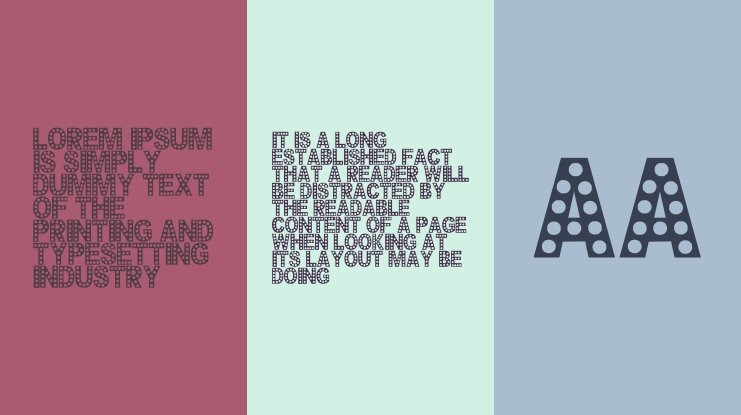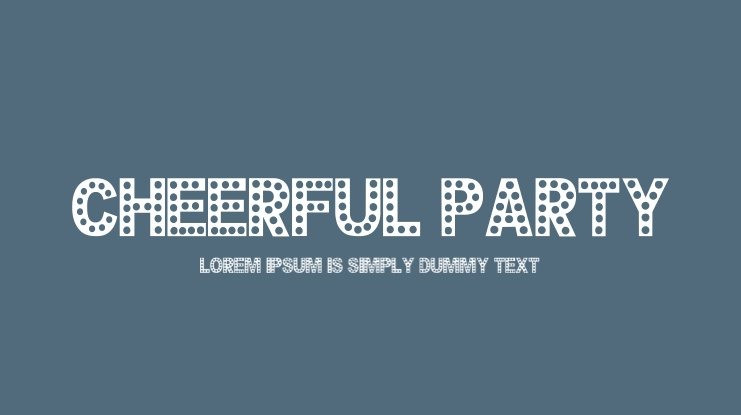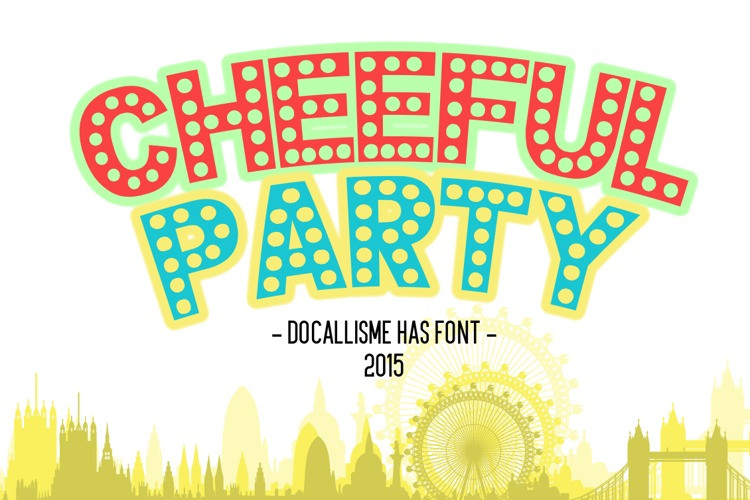
Cheerful Party Font
Cheerfull Party Display Font is a fun display typeface. It will lift your design and add a cheeky touch to each of your creations. Use this font for your designs and explore its endless possibilities.